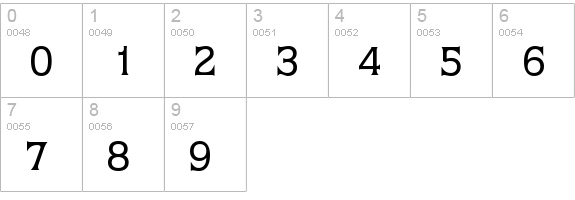
Quorum Medium BT Font Details
Quorum Medium BT is a balanced, medium-weight variant in the Quorum typeface family \xE2\x80\x94 well suited to sub-headlines, navigation, and balanced editorial work.
Quorum Medium BT font is a stylish and versatile typeface that exudes elegance and sophistication. With its clean lines and balanced proportions, this font is perfect for a wide range of design projects, from logos and branding to editorial layouts and web design. The Quorum Medium BT font features a harmonious blend of modern and classic elements, making it suitable for both contemporary and traditional designs. Its medium weight strikes the perfect balance between boldness and readability, ensuring that your message is clear and impactful. One of the standout features of Quorum Medium BT font is its versatility. It can be used effectively in both large and small sizes, making it suitable for headlines, subheadings, and body text. Its legibility ensures that your content is easily readable, even at smaller sizes. What sets Quorum Medium BT font apart is that it is freely available to download at FontsMarket.com. This means that you can enjoy the benefits of this exceptional font without any cost. Whether you are a professional designer or a hobbyist, having access to high-quality fonts like Quorum Medium BT font can greatly enhance your creative projects. So, if you are looking for a font that combines style, versatility, and affordability, look no further than Quorum Medium BT font. Download it for free at FontsMarket.com and add a touch of elegance to your next design endeavor.